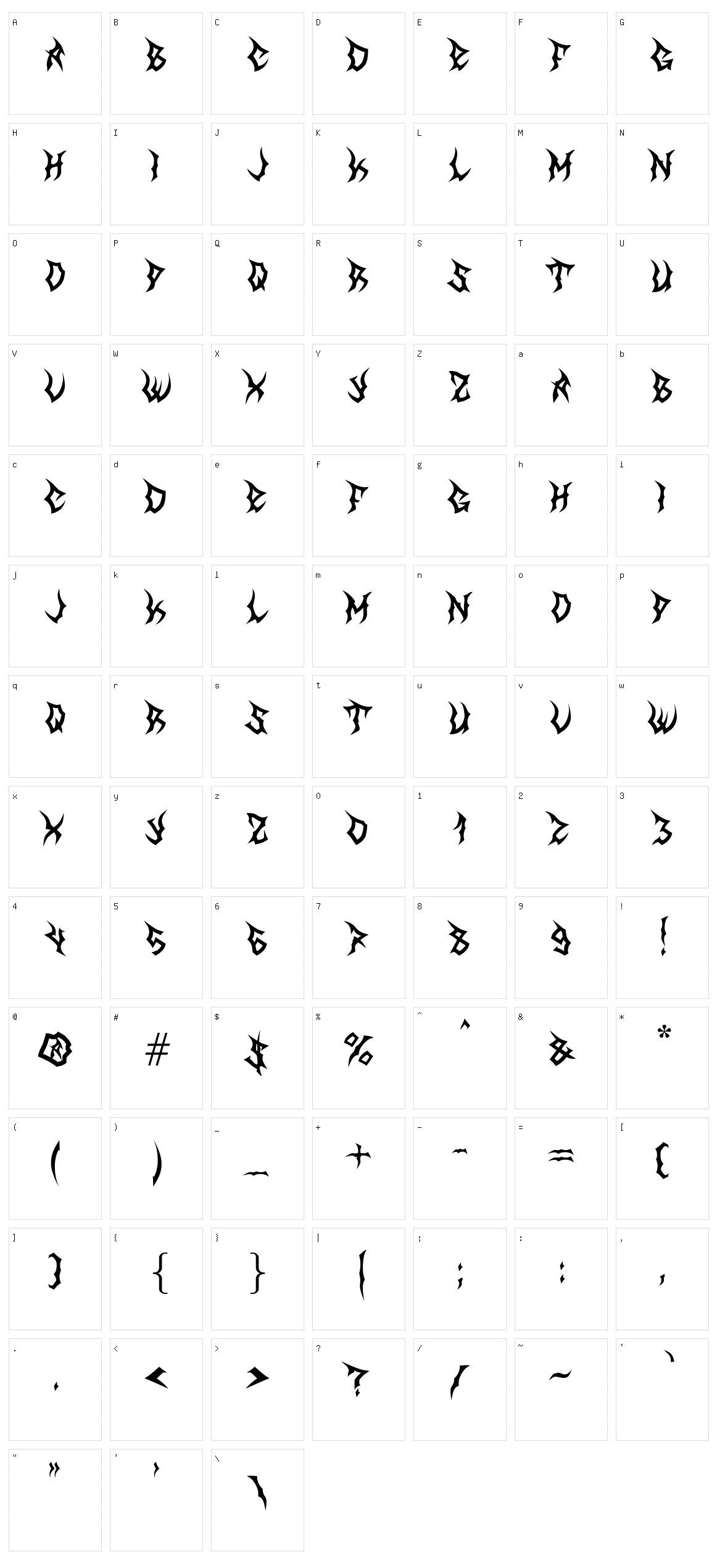
MB The Great Reaper
Designed by: Irina ModBlackmoon
Øðèôò 'MB The Great Reaper'.
Îïèñàíèå: Îòðèñîâàí ïîëíîñòüþ âðó÷íóþ. Âêëþ÷àåò â ñåáÿ àíãëèéñêèå è åâðîïåéñêèå áóêâû è ñèìâîëû.